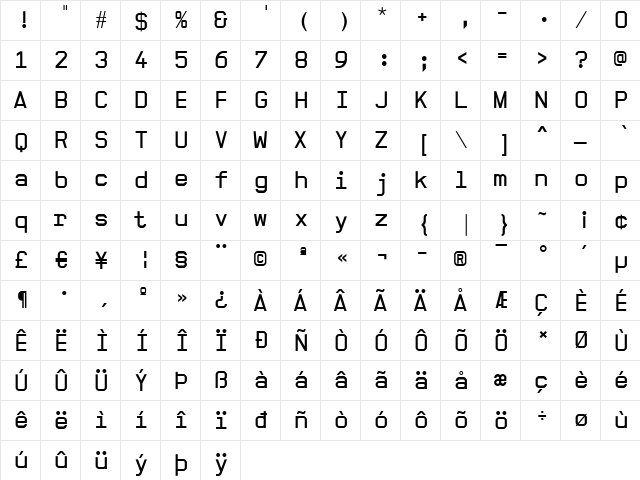
Office Regular
Design Context for Office Typeface
Office offers clean, dependable letterforms without strong stylistic allegiance, making it a practical choice for designers who need flexibility.